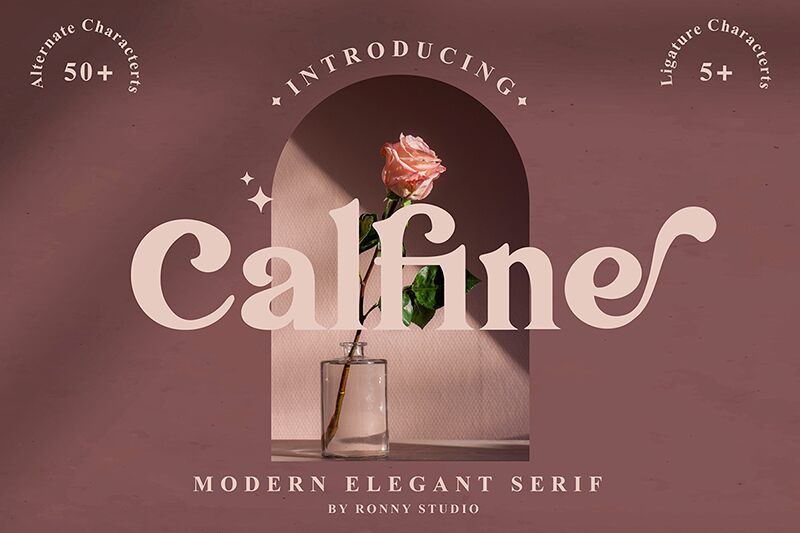
Calfine
Introducing Calfine, a bold vintage serif font designed by Ronny Rizki Jaya. This timeless typeface is perfect for adding a touch of classic sophistication to any project - from logos and branding to posters and packaging.